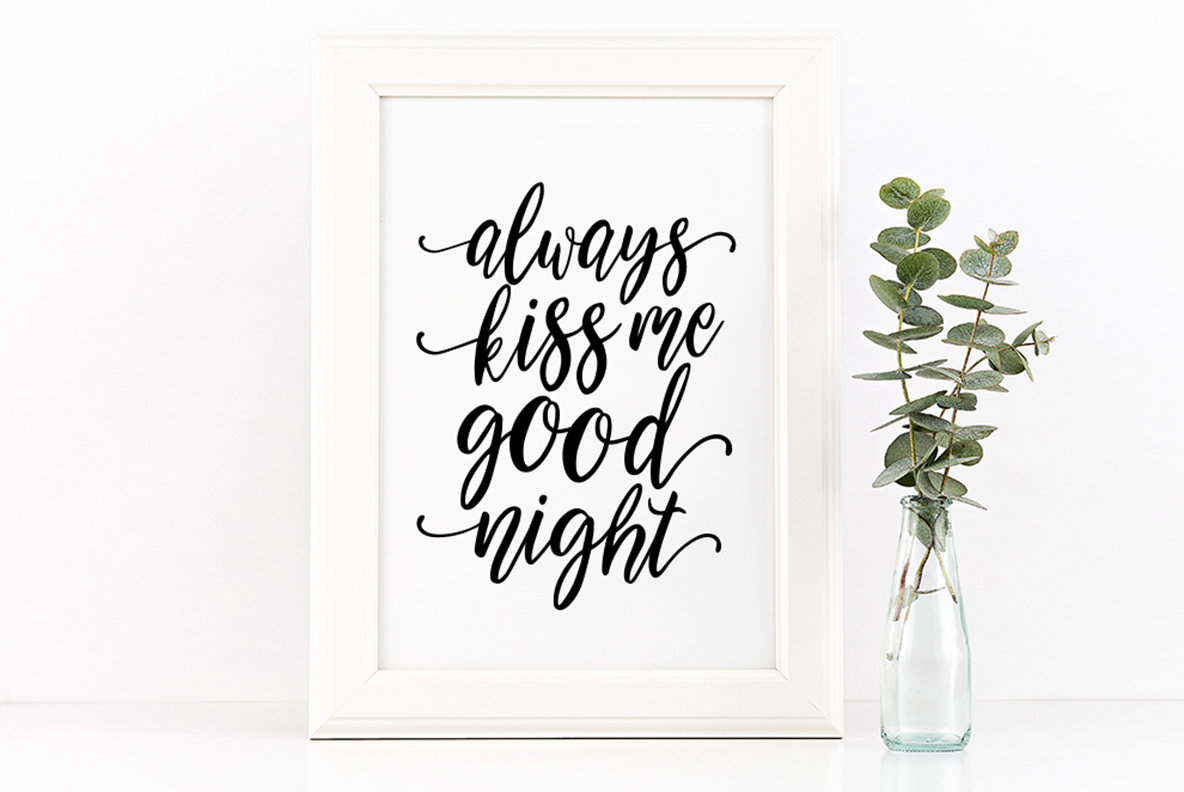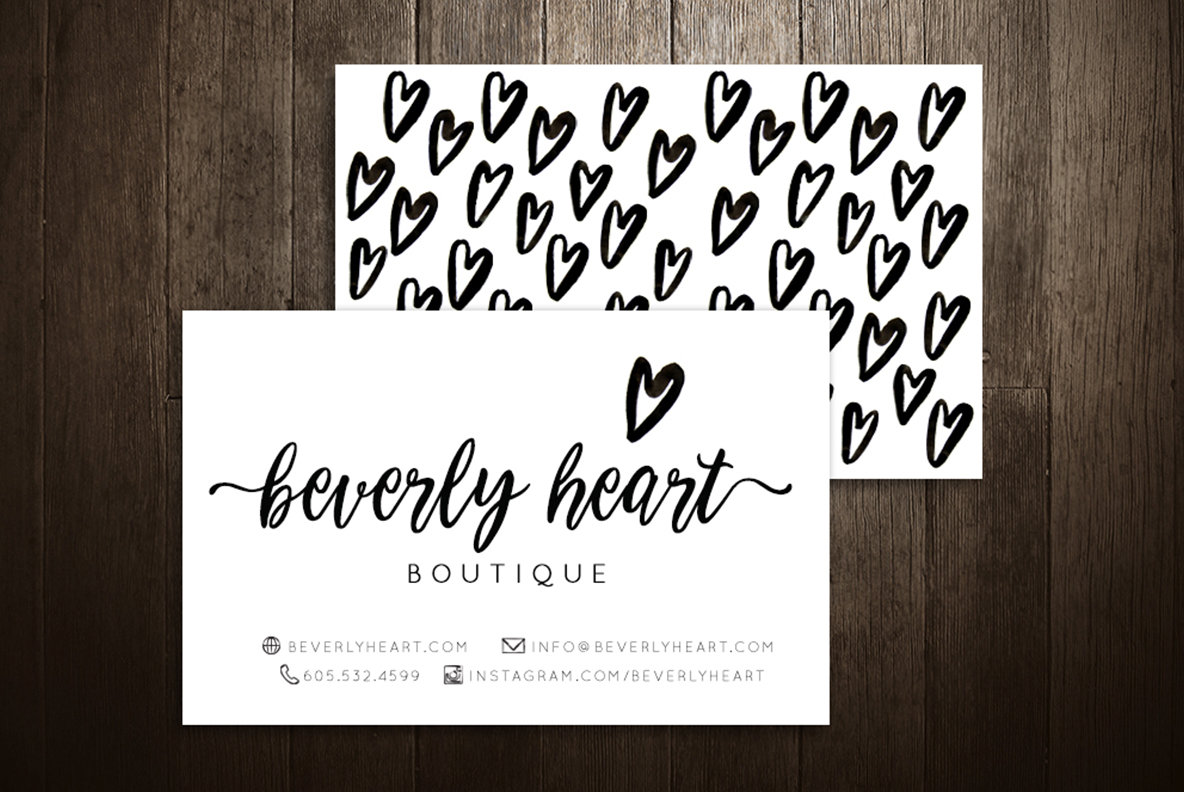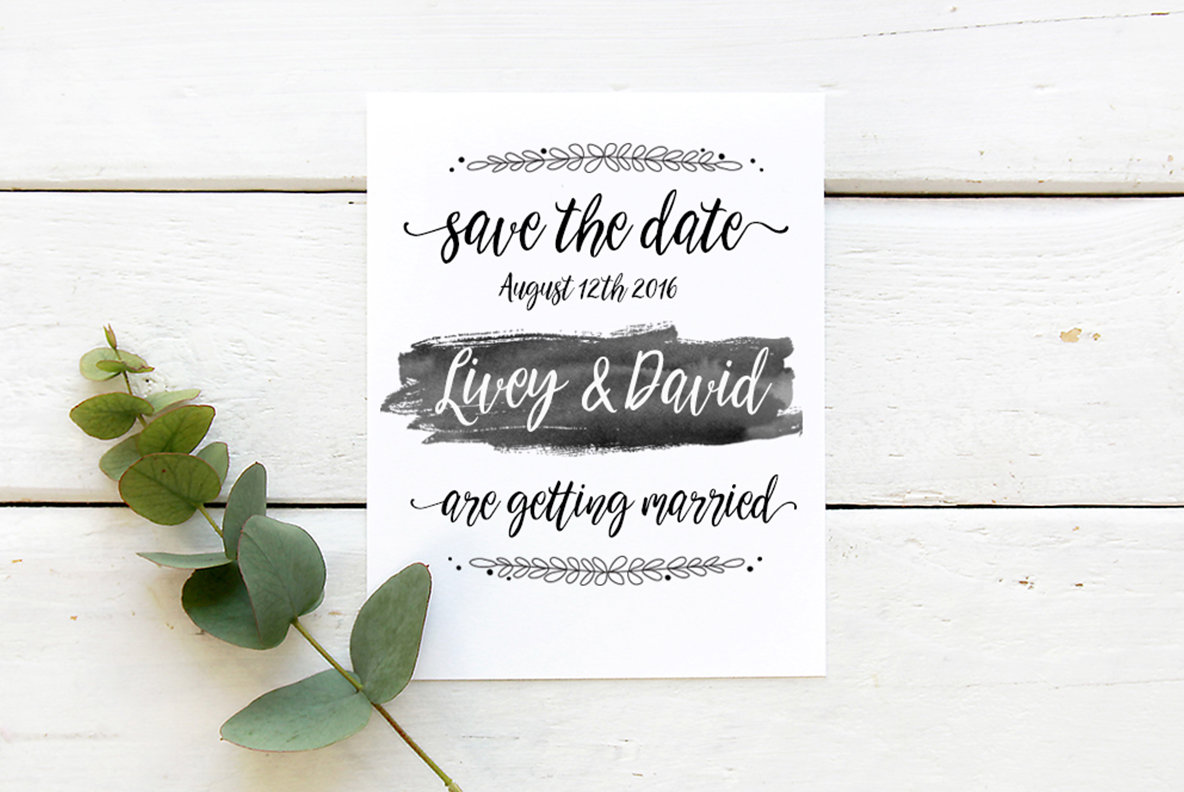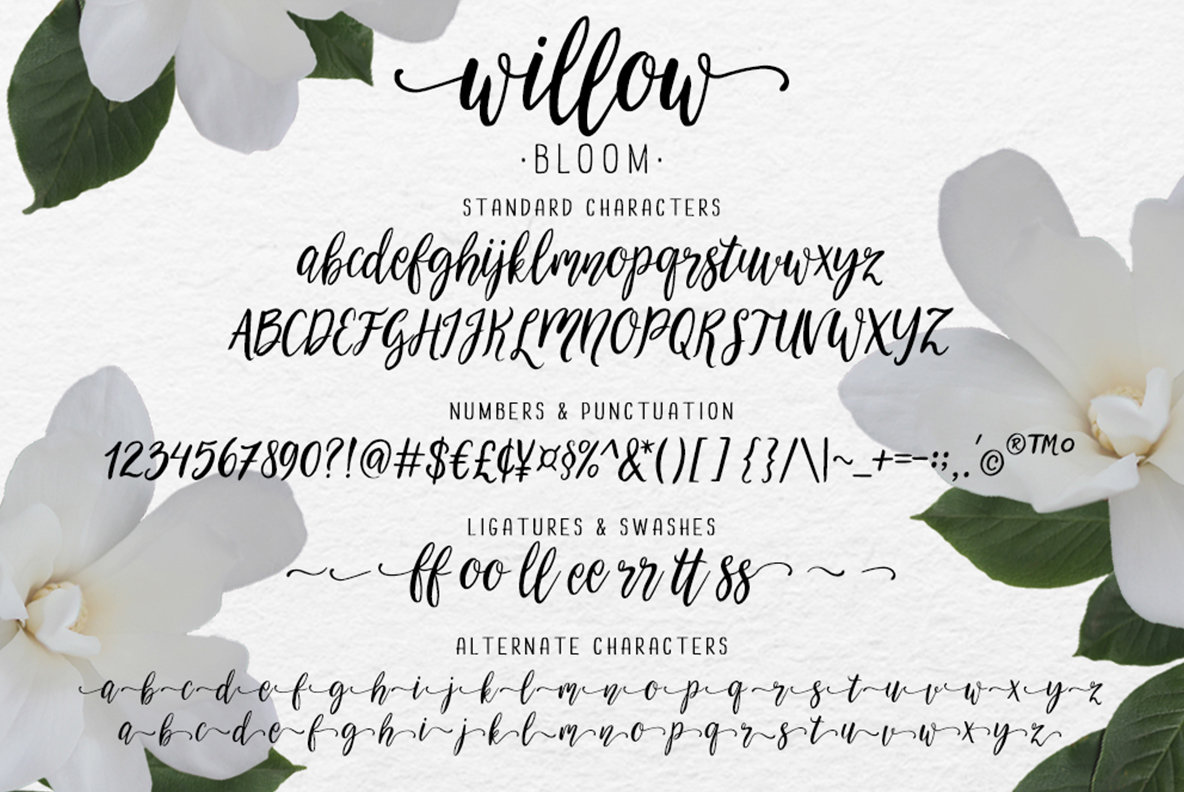
Willow Bloom Font
Willow Bloom
Willow Bloom is a beautiful, modern calligraphy font with a dancing baseline. This hand-lettered script will look gorgeous on all your designs, wedding invites, branding materials, logo's, business cards, and quotes.